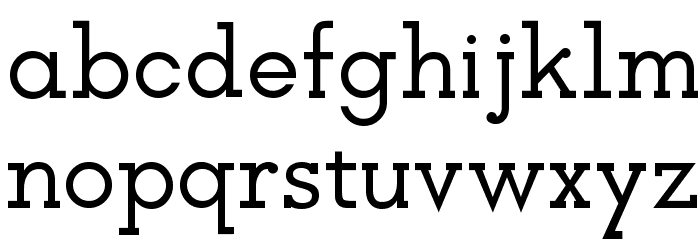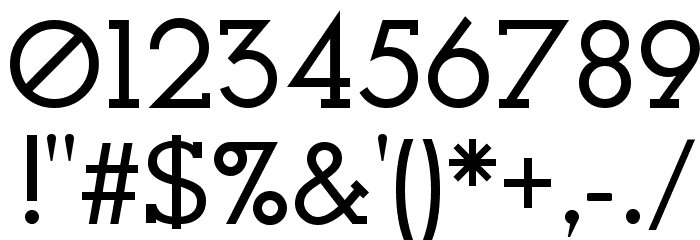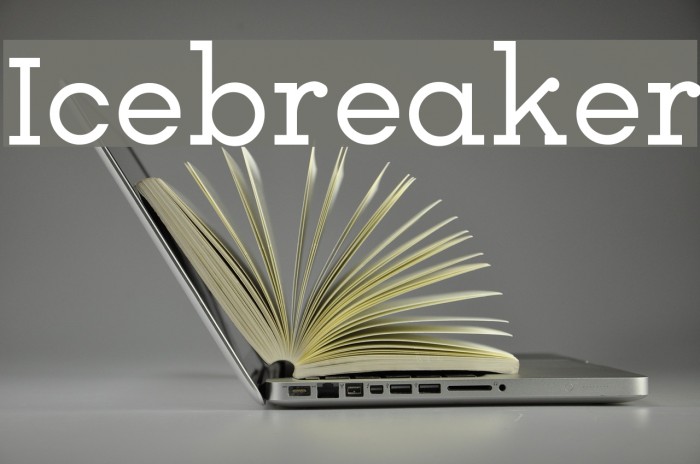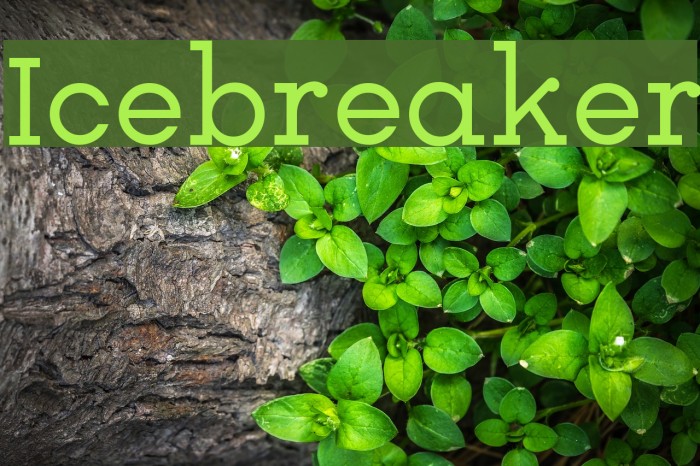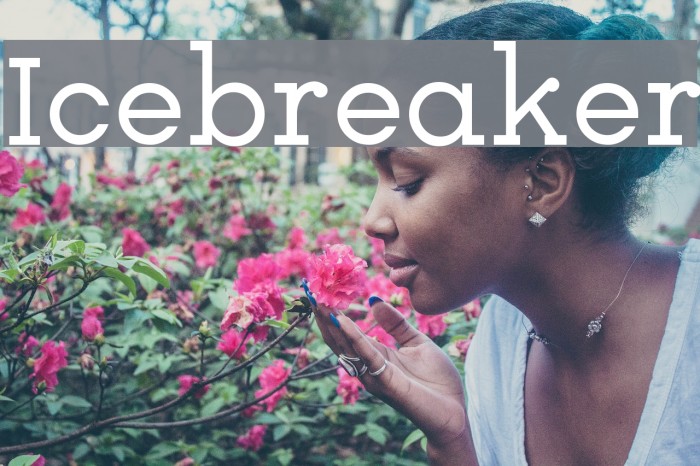
Icebreaker Font
This font features a classic serif style with a modern twist, characterized by its clean lines and balanced proportions. The uppercase letters are bold and commanding, while the lowercase letters maintain a friendly and approachable feel. The numerals are distinct and easy to read, making them suitable for a variety of applications. The special characters are well-integrated, ensuring consistency across different uses. The overall design is versatile, making it suitable for both digital and print media. Its timeless elegance is perfect for projects that require a touch of sophistication.
A modern serif font with clean lines and balanced proportions.